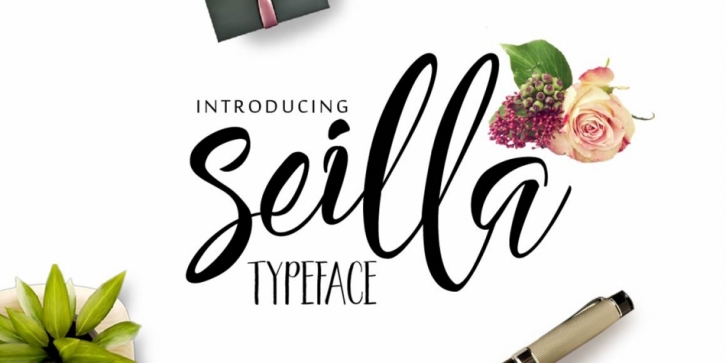
Seilla Script is a script and modern calligraphy font published by olexstudio.
Seilla is a modern lettering typeface. It is suitable for wedding invitations, greeting cards, watercolor based design, or any design that you create.
Seilla Script comes with a complete set of standard characters, punctuation, and international glyphs. The alternate characters were divided into several OpenType features such as Ligature & Alternates.